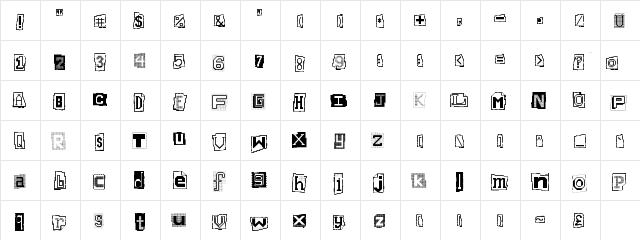
Note It FF Regular
Design Context for Note It FF Typeface
Note It FF is a composed and adaptable typeface that performs quietly and consistently across a wide range of design contexts.